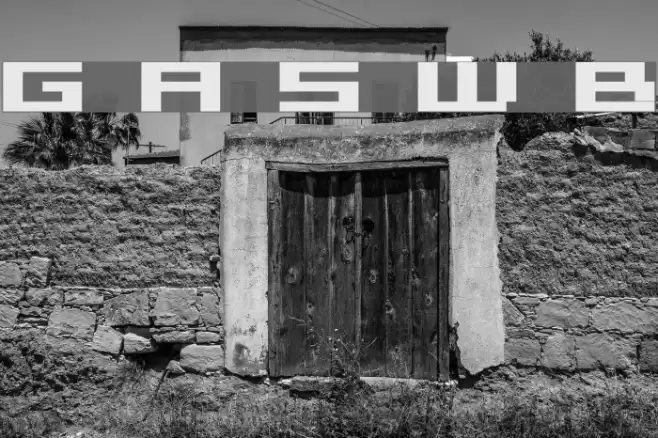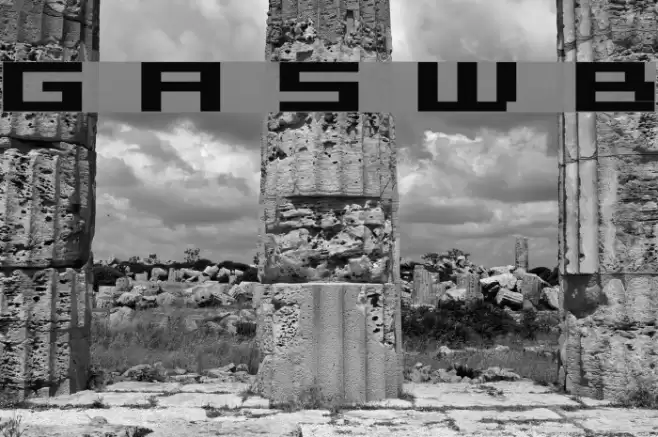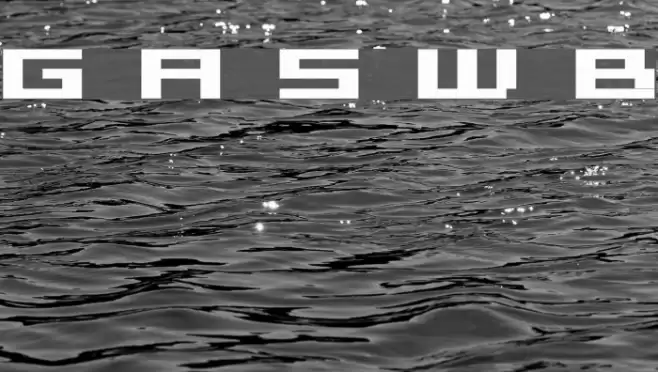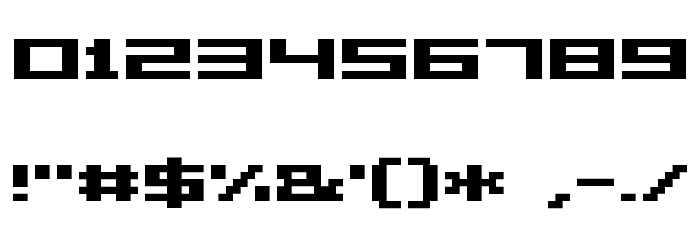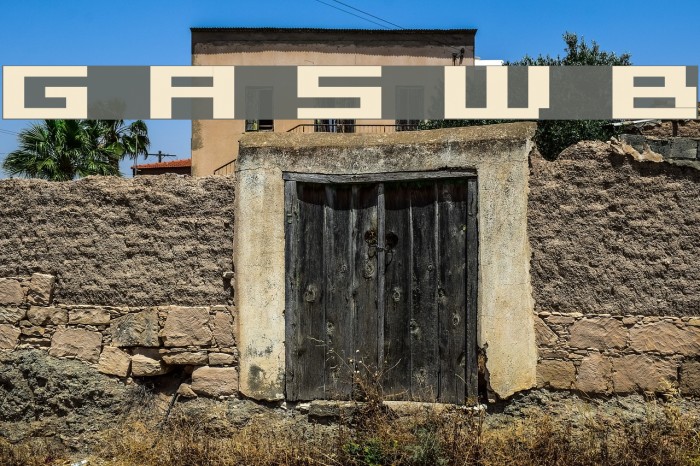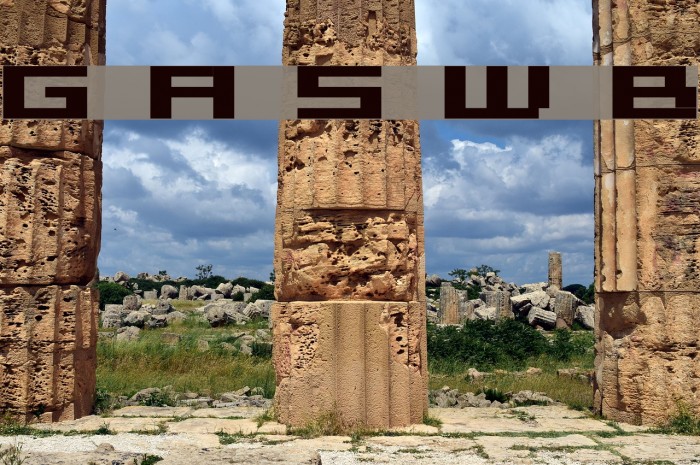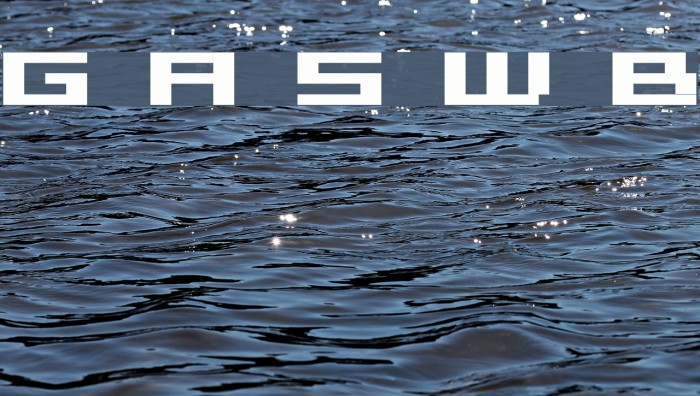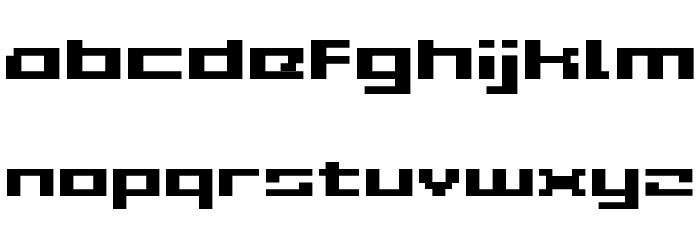
Grixel Acme 5 Wide Bold Font
Grixel Acme 5 Wide Bold Description
This font features a bold, pixelated design reminiscent of classic video game graphics. Each character is constructed with a blocky, grid-like structure, giving it a distinctly retro and digital appearance. The uppercase and lowercase letters maintain a consistent width, contributing to a uniform and cohesive look. The numerals and special characters are designed with the same pixelated style, ensuring visual harmony across all elements. This font's boldness and geometric precision make it ideal for projects that require a vintage or tech-inspired aesthetic.
A bold, pixelated font with a retro, digital style from Pixel fonts.
- Proposed Projects: Ideal for video game designs, tech-themed posters, retro branding, and digital art projects.
- Overall Style: Retro